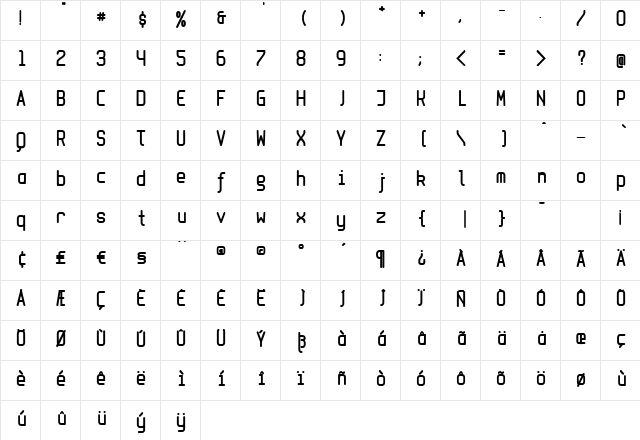
MonoBlack Regular
Design Context for MonoBlack Typeface
MonoBlack uses fixed-width spacing throughout, giving it the structured, systematic character associated with coding environments and technical documentation.